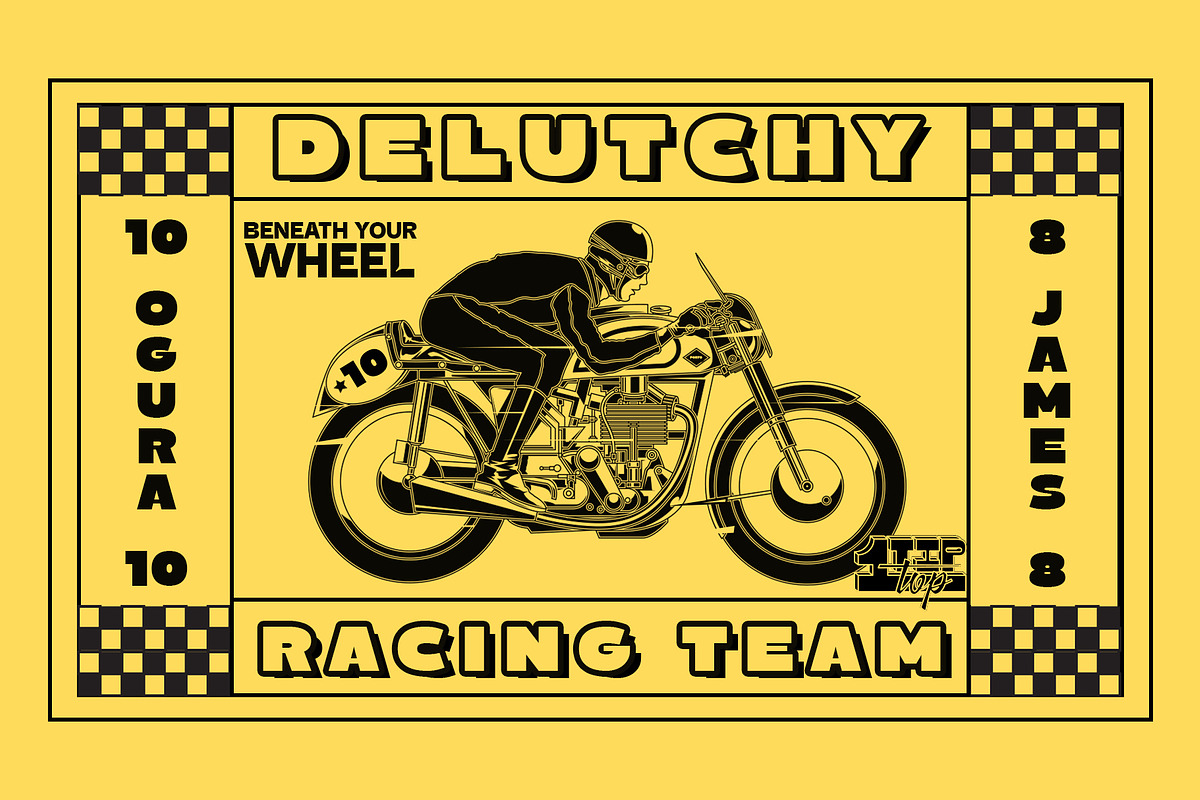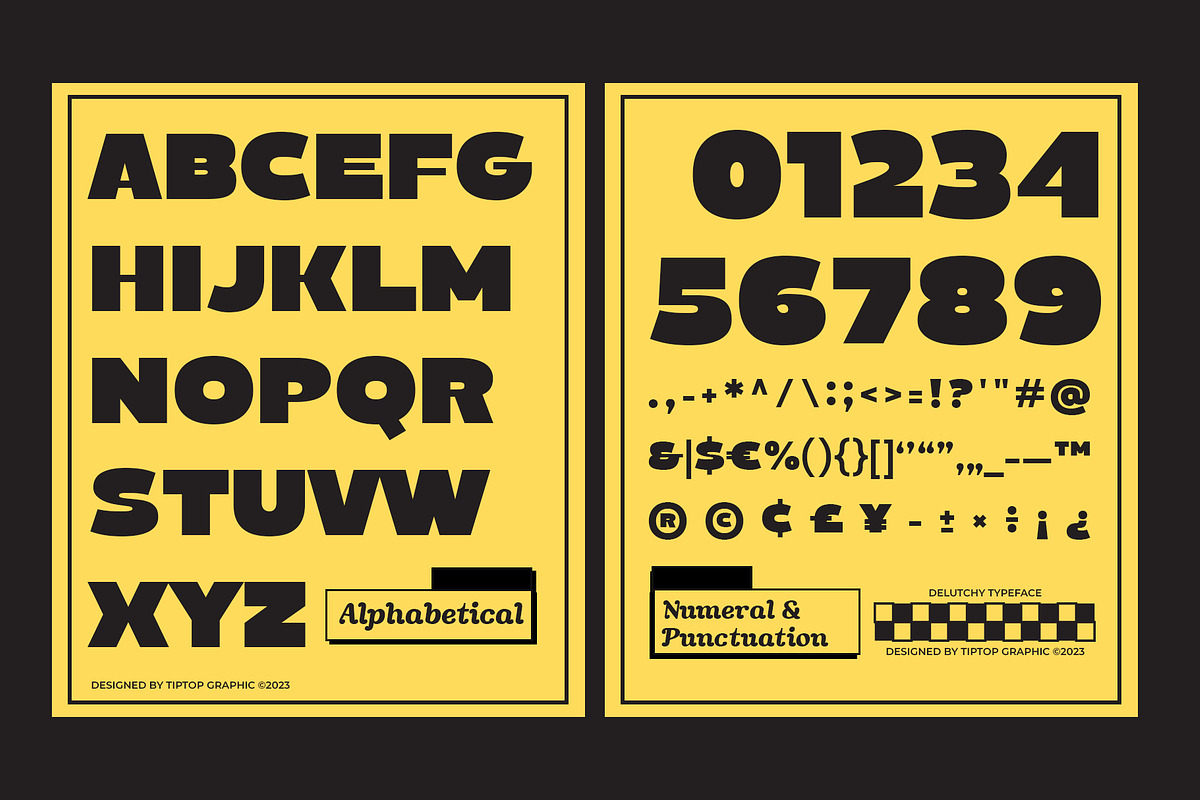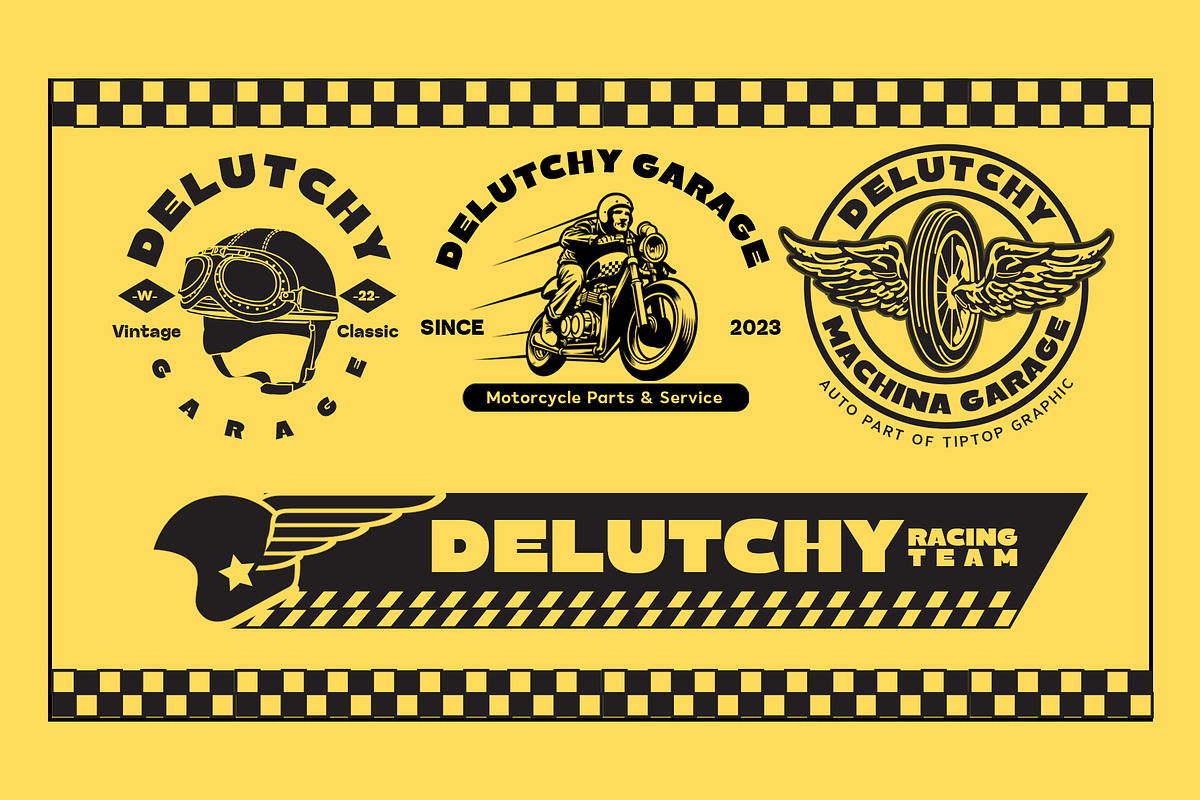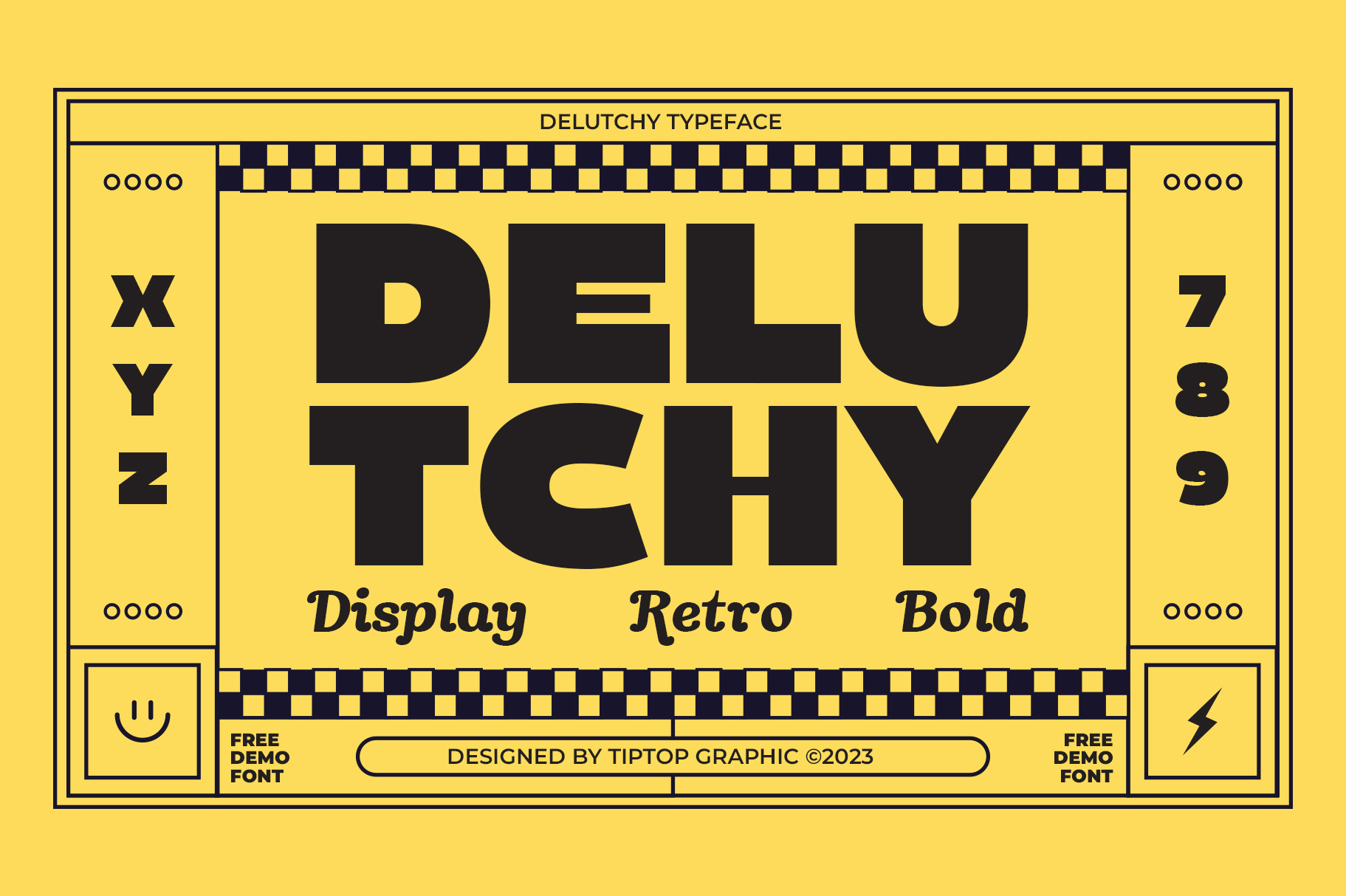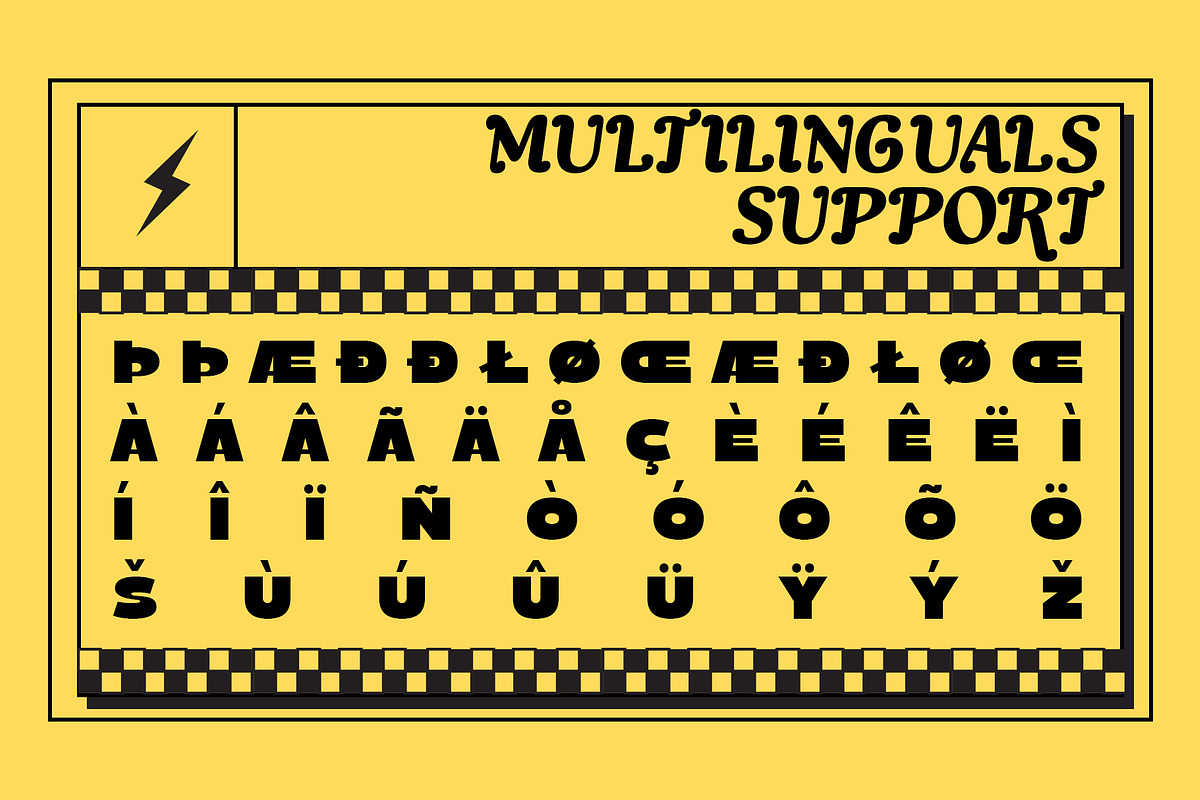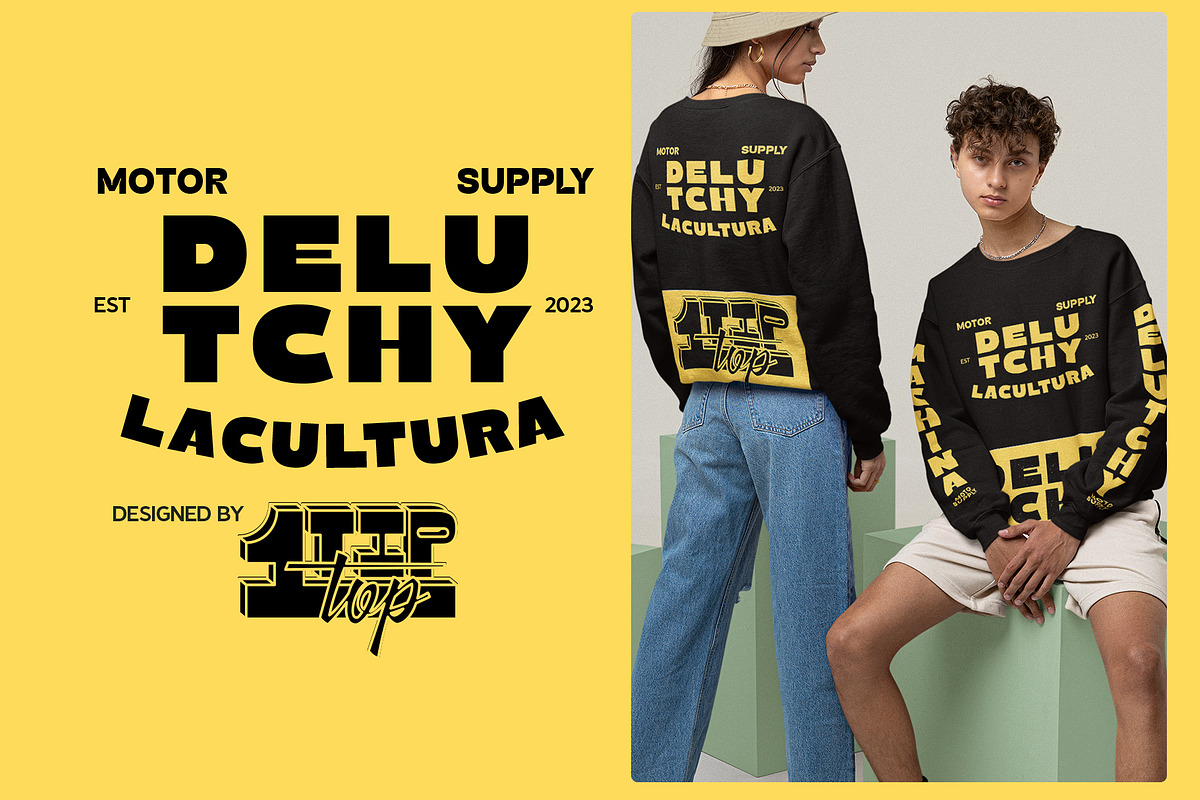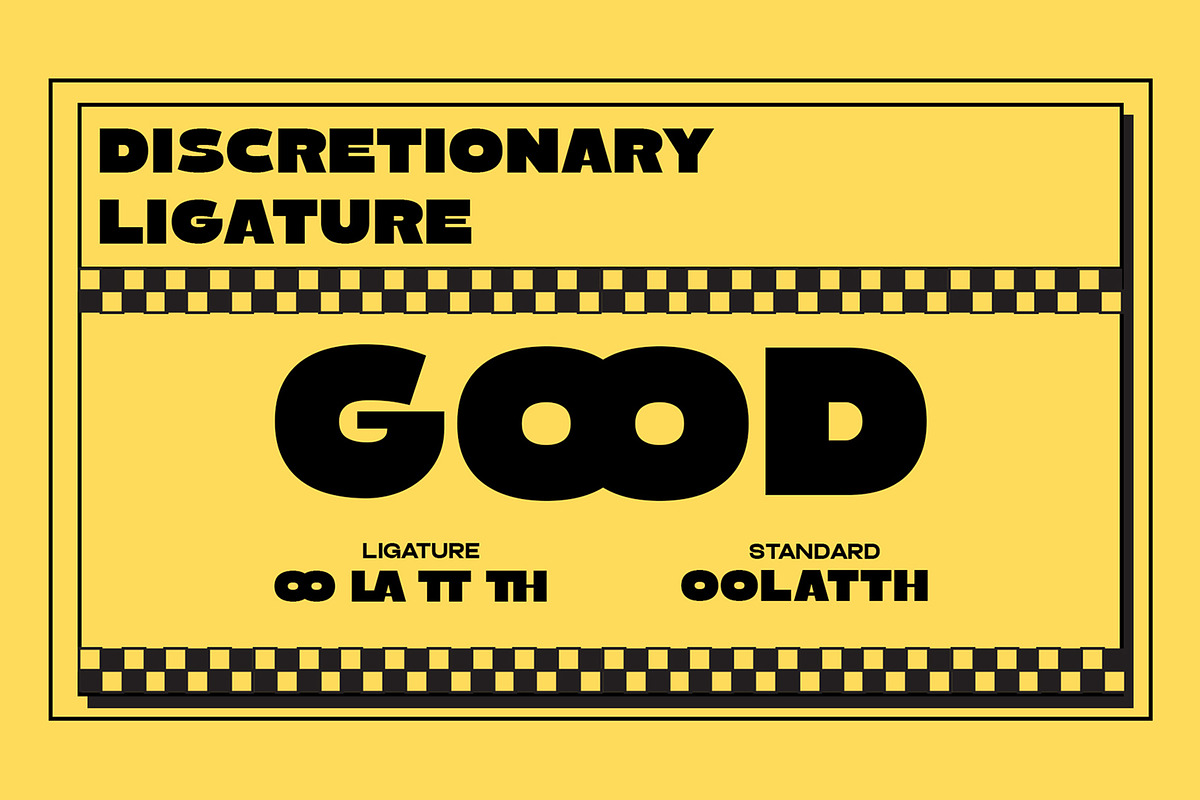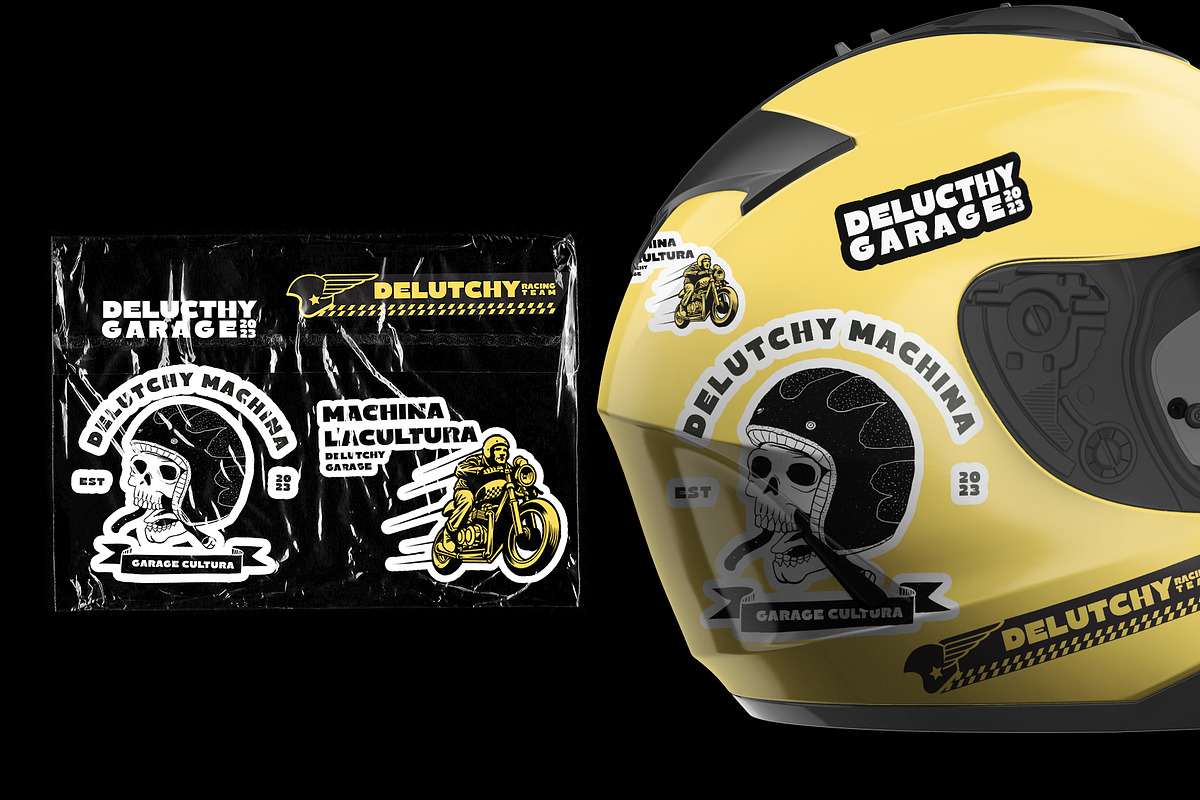
Delutchy | Display Retro Bold Font
Delutchy is a typeface design inspired by the old motorcycle racing era, which stands out and stays clean.
This display font is suitable for logo designs, clothing, packaging, magazine headers, and other graphic works.
- All CAPS